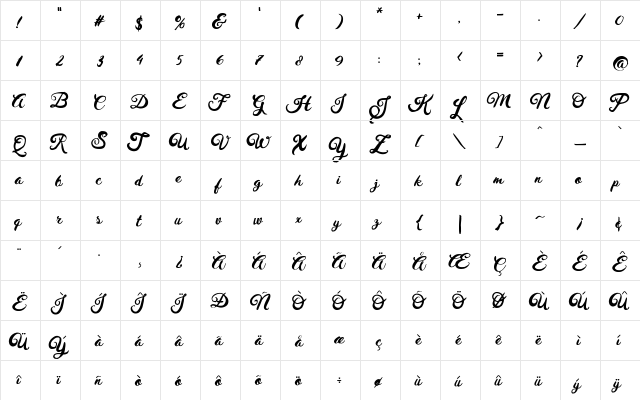
Husty Brush Regular
Design Context for Husty Brush Typeface
Husty Brush brings a calligraphic fluidity to the page — its connecting strokes and expressive curves give it an unmistakably human quality.
Font Pairing: Combine Husty Brush with a simple geometric sans for maximum contrast — the tension between flowing curves and clean structure is a classic typographic pairing.
Pro Tip: Use Husty Brush for short runs of text — names, titles, or taglines. Extended body copy in script faces tires the eye quickly.